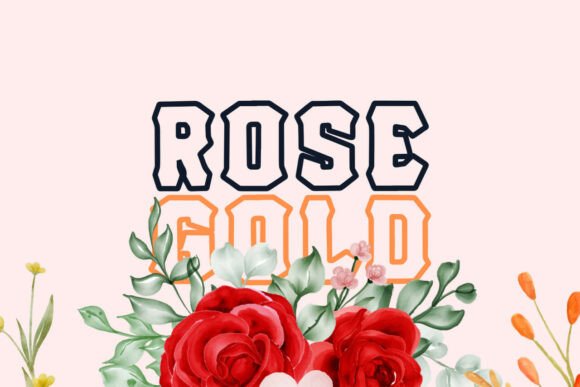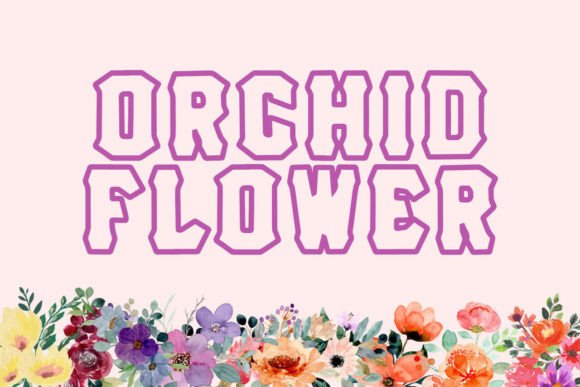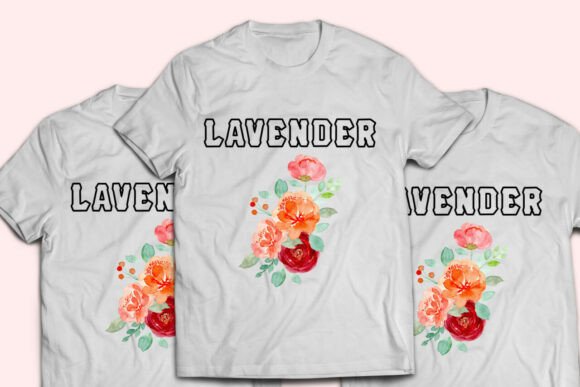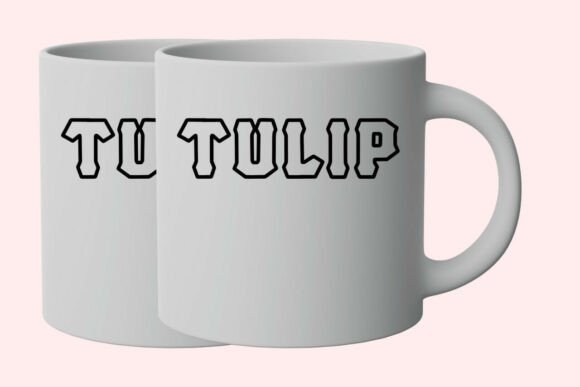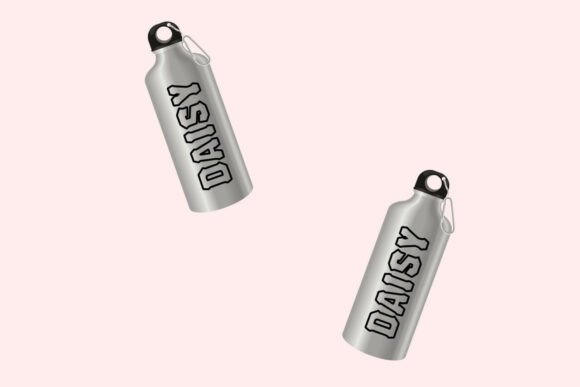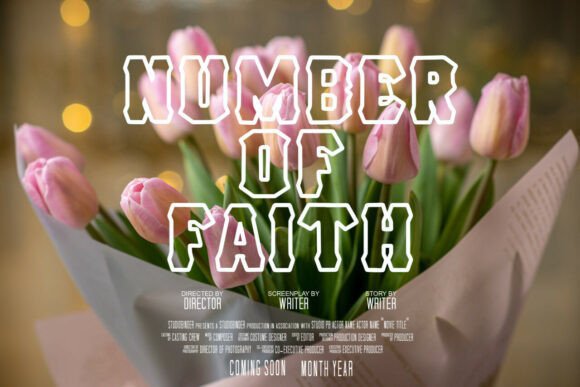
Unleash Your Creativity with Hell Forge Outline Font
Are you a designer or crafter looking for a font that exudes a steel-cut attitude with clean readability? Look no further than Hell Forge Outline Font. This versatile font is designed to bring a touch of edginess to your projects, making it perfect for gaming brands, biker merch, garage logos, metal gigs, and gritty labels.
The Unique Features of Hell Forge Outline Font
Hell Forge Outline Font boasts a unique hollow build that gives letters a heavy yet airy feel. The edges of the letters remain sharp, making it ideal for use on shirts, posters, patches, and thumbnails. The font’s outline style also lends itself well to glow, gradients, and chrome effects, allowing you to create quick mockups that look finished.
Where Hell Forge Outline Font Shines
This font truly shines when used to set short phrases, product names, or team initials. By adding inner shadows, neon rims, or brushed-metal textures, you can create designs with depth and dimension. The spacing of the font is also optimized for headlines, making it easy to build covers, banners, and decals in minutes.
Hell Forge Outline Font offers a range of benefits for designers and crafters, including:
- Forged clarity: Clean paths keep vinyl cuts, laser engraving, and screen printing looking crisp and clear.
- Light on dark fabrics: The open centers of the font keep designs looking bold even on dark fabrics.
- Easy to use: The font is designed to be easy to use, even for those with limited design experience.
Hell Forge Outline Font is perfect for a variety of projects, including:
- Gaming brands: Create bold and edgy logos, banners, and decals for gaming brands.
- Biker merch: Design eye-catching t-shirts, patches, and stickers for bikers.
- Garage logos: Create rugged and industrial-looking logos for garages and workshops.
- Metal gigs: Design bold and attention-grabbing posters and flyers for metal music gigs.
- Gritty labels: Create bold and edgy labels for products, such as craft beer or cosmetics.
Tips for Using Hell Forge Outline Font
Here are a few tips for getting the most out of Hell Forge Outline Font:
- Experiment with different effects: Try adding inner shadows, neon rims, or brushed-metal textures to give your designs depth and dimension.
- Play with colors: The font looks great with bold and bright colors, but also try using it with metallic or gradient effects.
- Keep it simple: The font is designed to be used for short phrases or titles, so keep your designs simple and concise.
Hell Forge Outline Font is a versatile and powerful font that is perfect for designers and crafters looking to add a touch of edginess to their projects. With its unique hollow build, sharp edges, and clean readability, this font is sure to make your designs stand out. Whether you’re creating gaming brands, biker merch, garage logos, metal gigs, or gritty labels, Hell Forge Outline Font is the perfect choice.